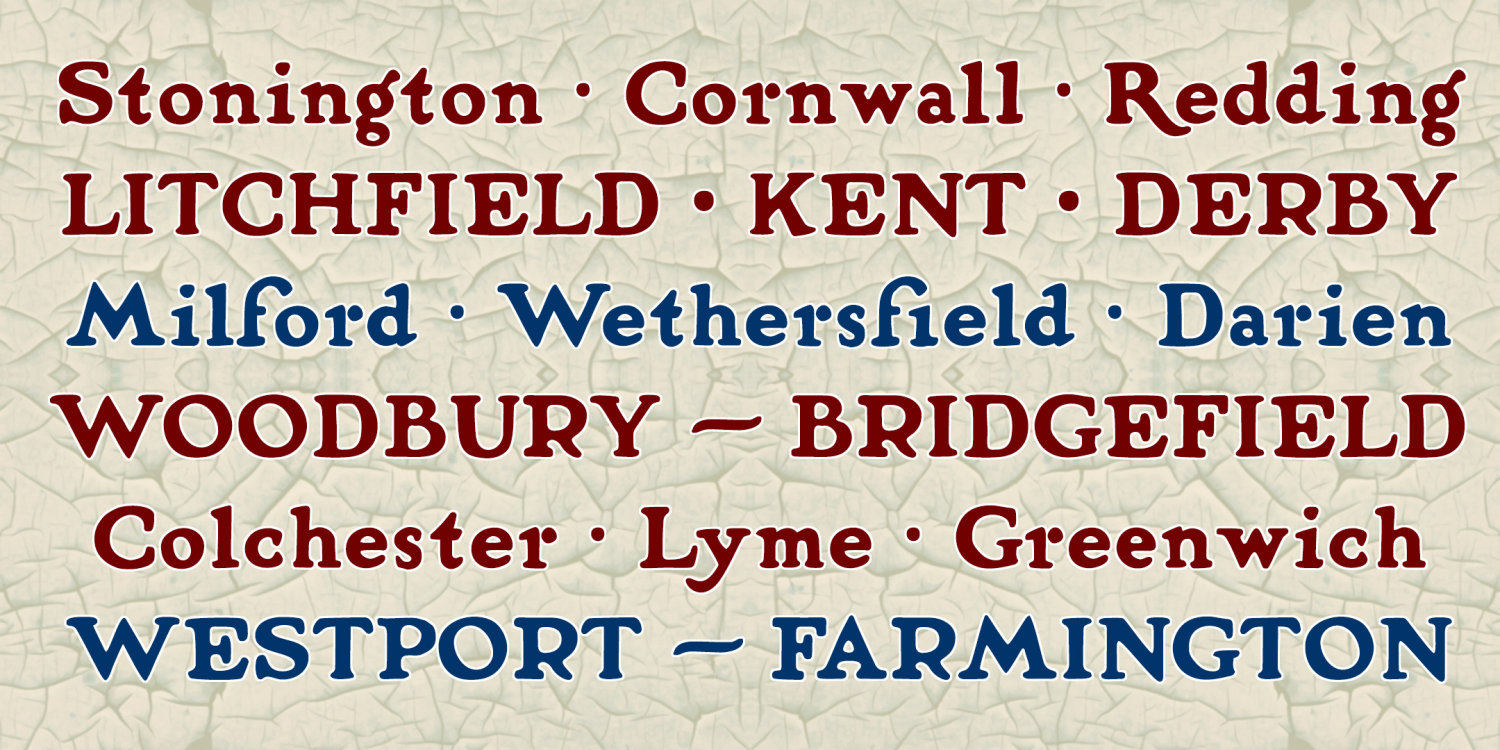
Bridgefield Regular
BRIDGEFIELD was inspired by hand-lettered posters from the early 20th century. Gently rounded serifs give the quaint and friendly feel of home and family. I looked at Fred G. Cooper’s WWI-era posters for the US Food Administration, as well as his other work and other artists’ similar work of the period.